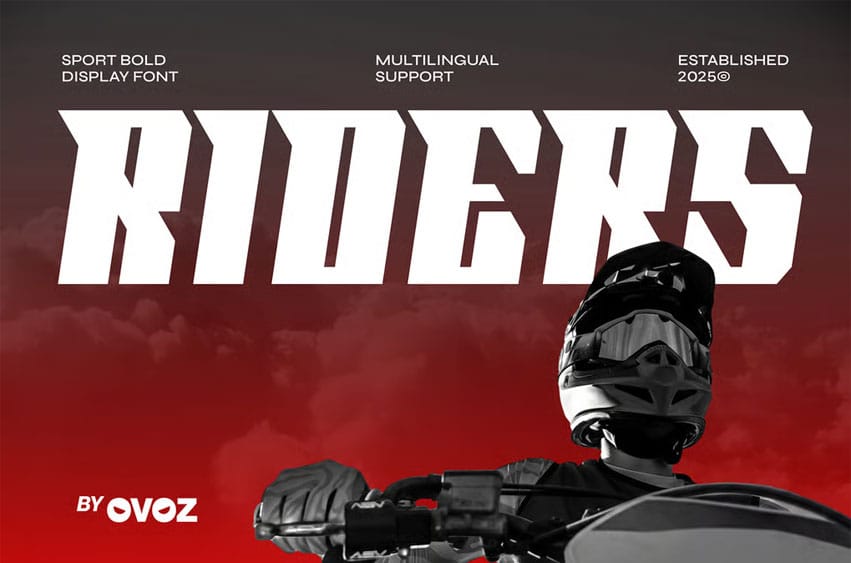
Riders Sports Font is a sport-bold display font built for unstoppable energy and high-impact visuals. Its sharp angles, wide stance, and racing-inspired cuts make it perfect for sports, racing, football, basketball, soccer, and any project that demands power and precision. Designed to enhance intensity and speed, this typeface delivers the bold presence needed for athletic branding, gym posters, bold sport headlines, fight promotions, and dynamic sporty visuals.
From baseball graphics to hockey visuals, from fitness branding to biker-inspired logos, RIDERS brings a fearless attitude to every design. Its commanding structure and modern edge make it an ideal choice for race numbers, golf tournaments, athletic campaigns, and high-performance team identity. Whether you’re building a pro-level aesthetic or pushing adrenaline-filled concepts, this font ensures your message hits with strength, speed, and undeniable style.
Bold Moves, Strong Letters — where dynamic sport energy meets modern precision to create a fearless competitive identity.